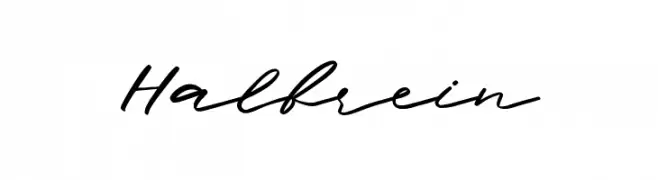
• Gradius, Gradius 2 TTF
( Genshichi Yasui - www.jttk.zaq.ne.jp/babwp701/hpfont/font.html )
A pixelated, retro-style font inspired by classic arcade games.
• Ninja Kid 2 TTF
( Genshichi Yasui - www.jttk.zaq.ne.jp/babwp701/hpfont/font.html )
A bold, pixelated font with a retro arcade game style.
• Solomon's Key True Type Smoose
( Genshichi Yasui - www.jttk.zaq.ne.jp/babwp701/hpfont/font.html )
A bold, geometric font with a futuristic, digital aesthetic.
• Solomon's Key True Type
( Genshichi Yasui - www.jttk.zaq.ne.jp/babwp701/hpfont/font.html )
A bold, pixelated font with a retro digital style.
• Stibna
( Hrothiland Bairhteins - airushimmadaga.wordpress.com )
A bold, angular font with a medieval-inspired, decorative style.
• Halbrein
( Mr. Typeman - creativemarket.com/mr.typeman )
A smooth, flowing script font with an elegant handwritten style.
• Rolanda [Demo]
• Riky Vampdator Normal
A bold, gothic-style font with sharp, angular edges and dramatic flair.
• POLYA Regular
A geometric, decorative font with intricate line patterns forming each character.
• Kalos Sans Book
A modern, geometric sans-serif font with a clean and balanced design.